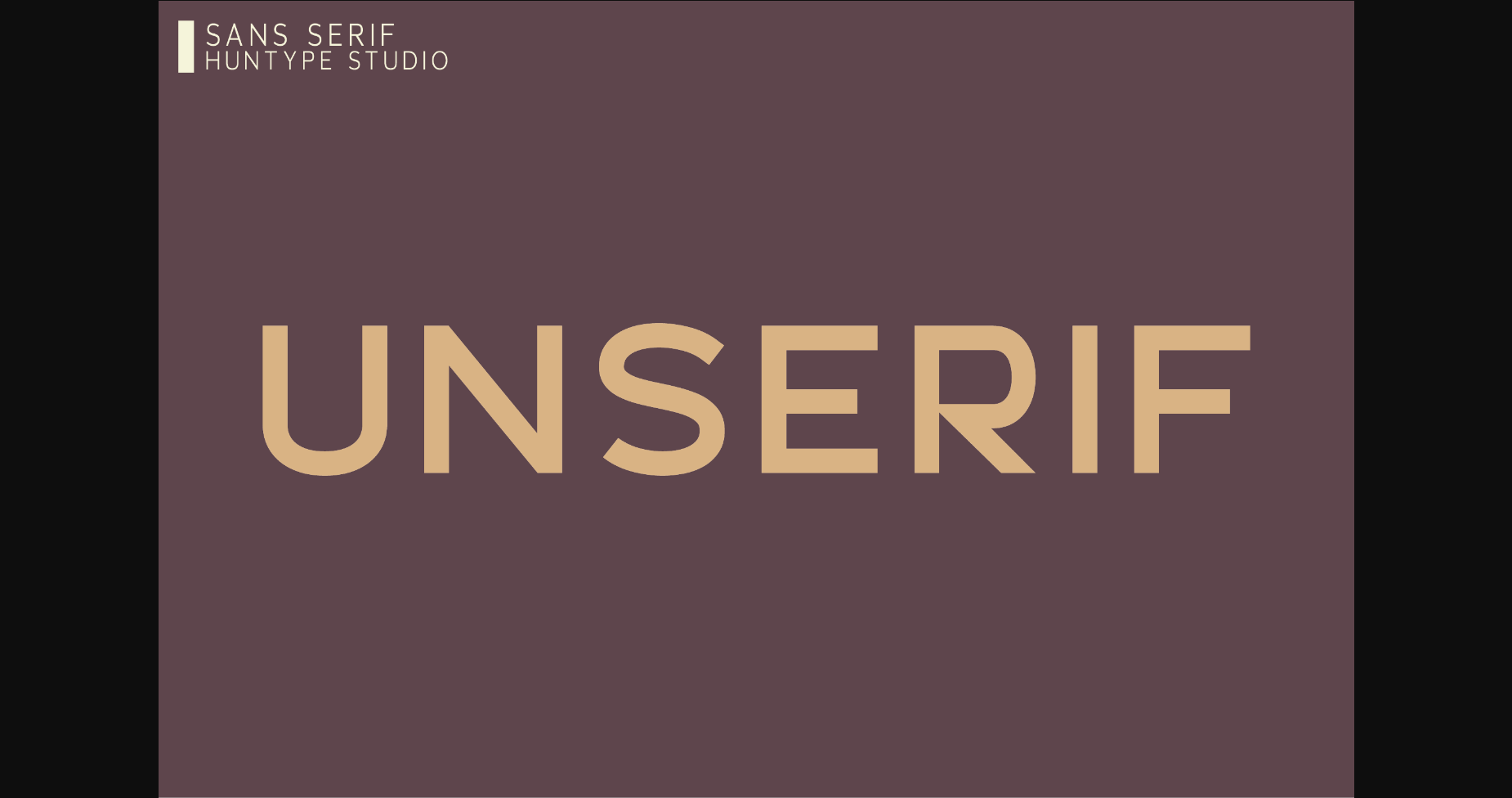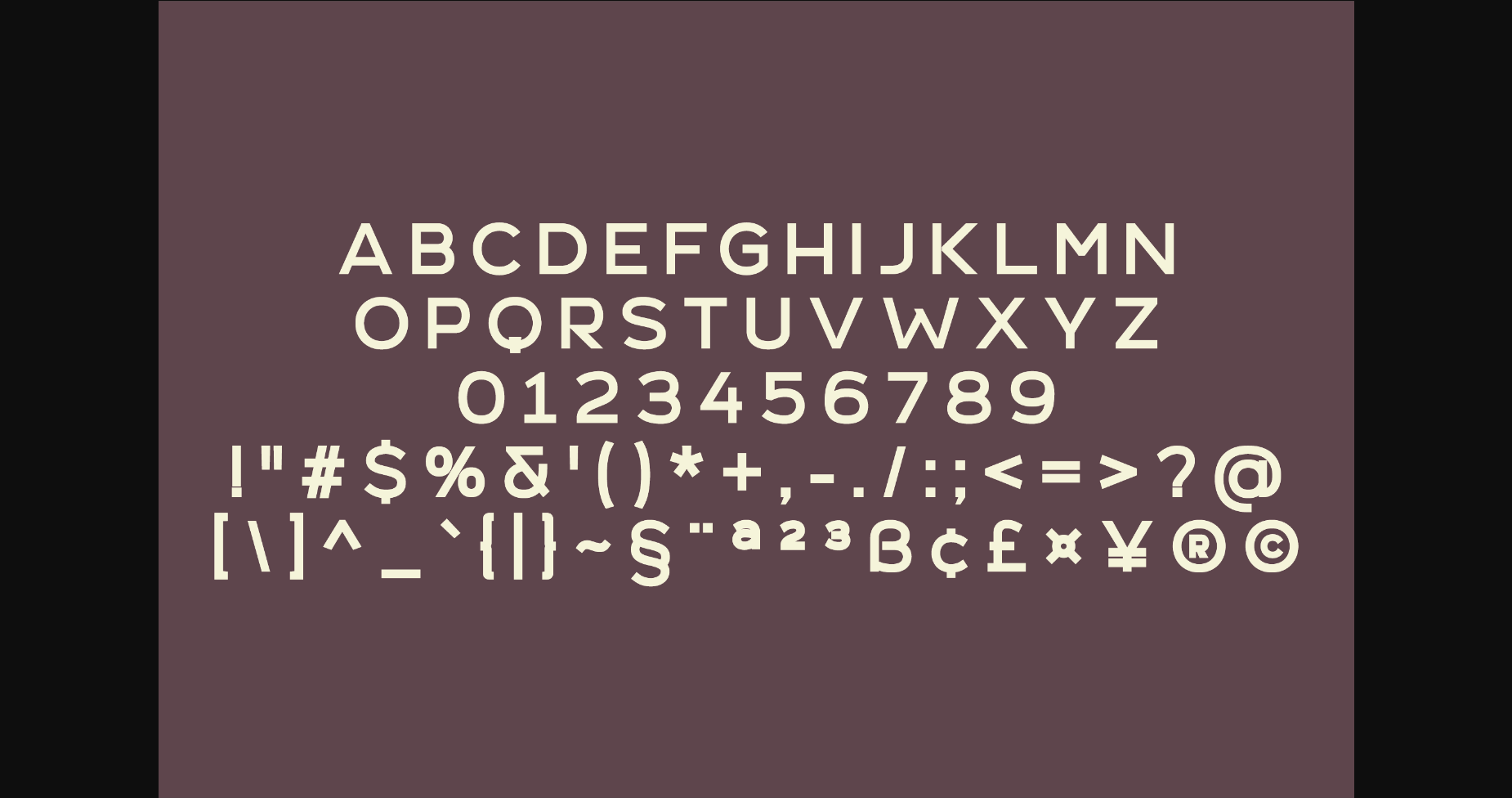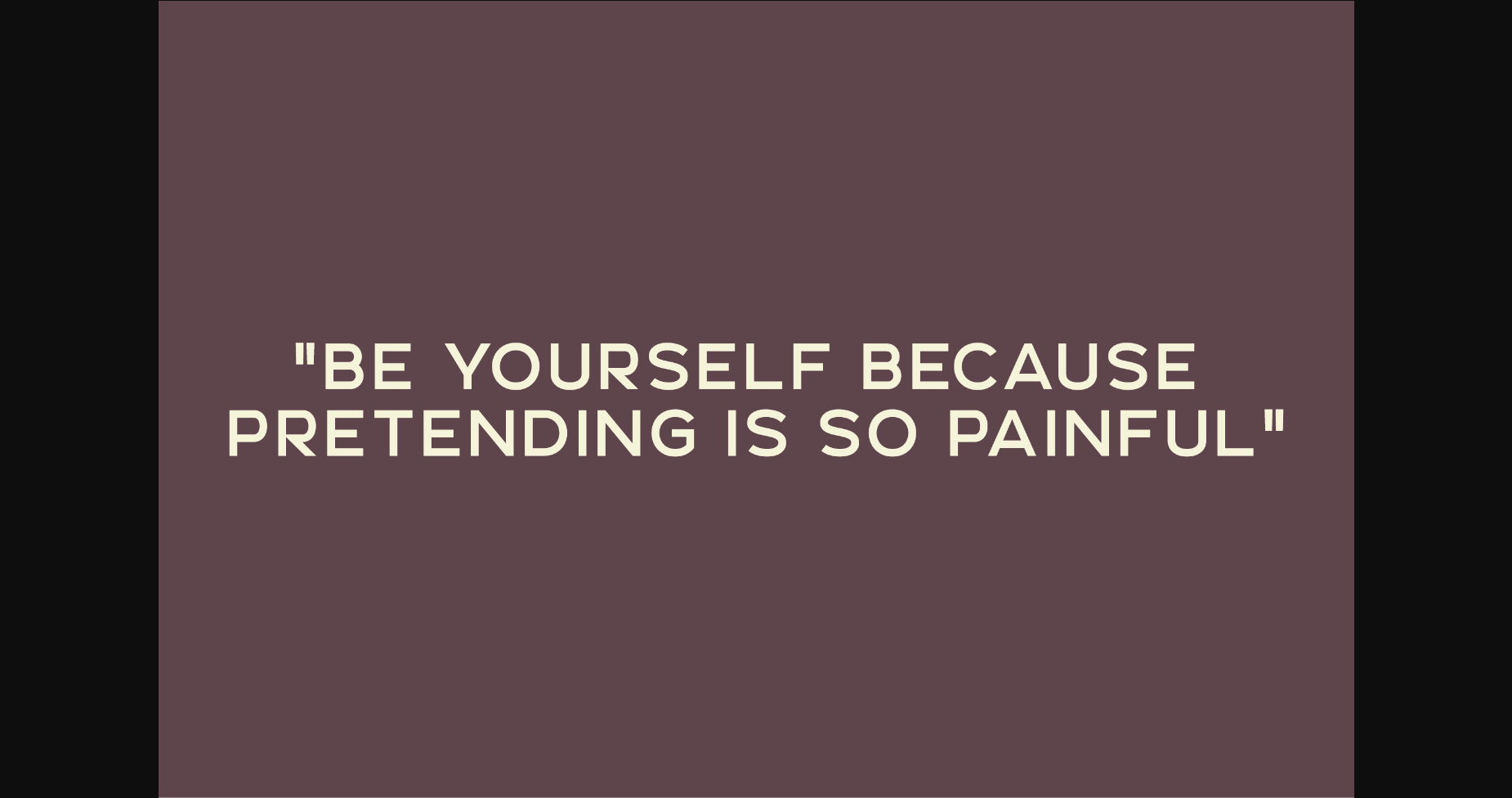
Unserif Font
About Unserif Font
Unserif is officially a new favorite of mine – this all caps sans serif is so versatile and looks great in just about any context. With smooth and clean lines, and just a touch of contrast, Versailles works beautifully for logos, branding, and web headings.